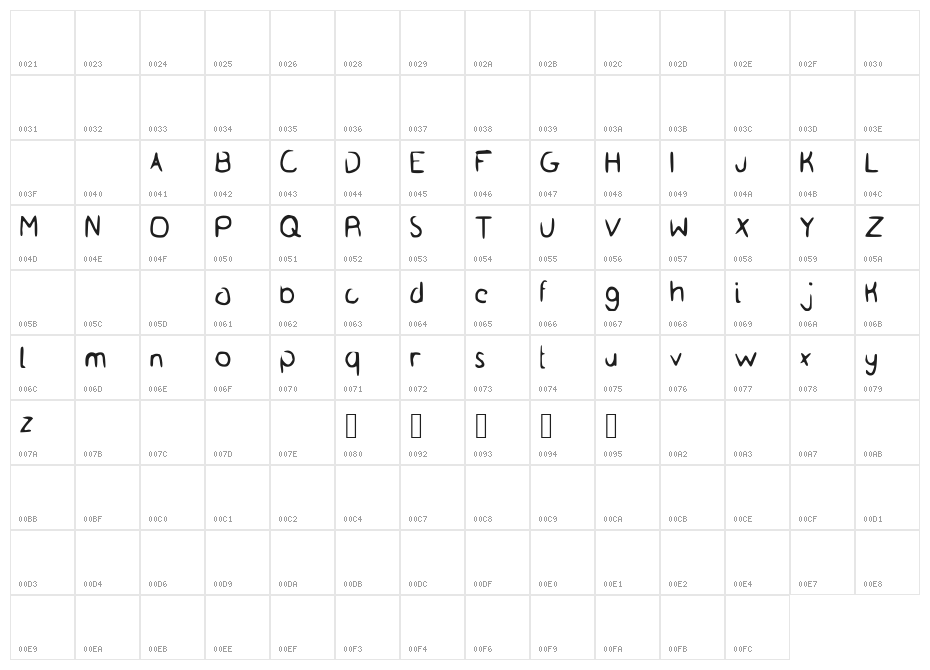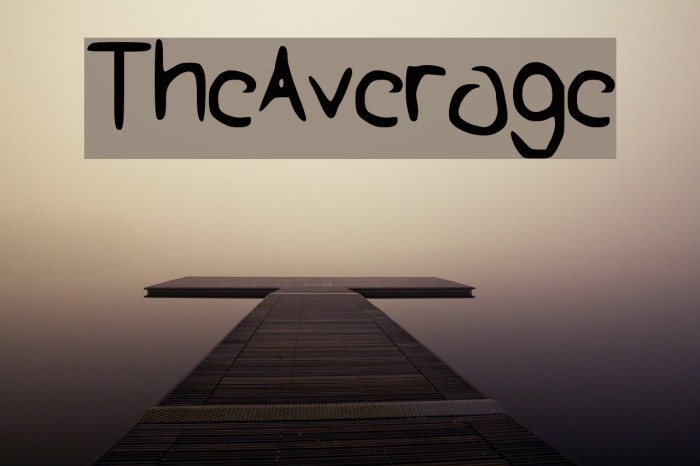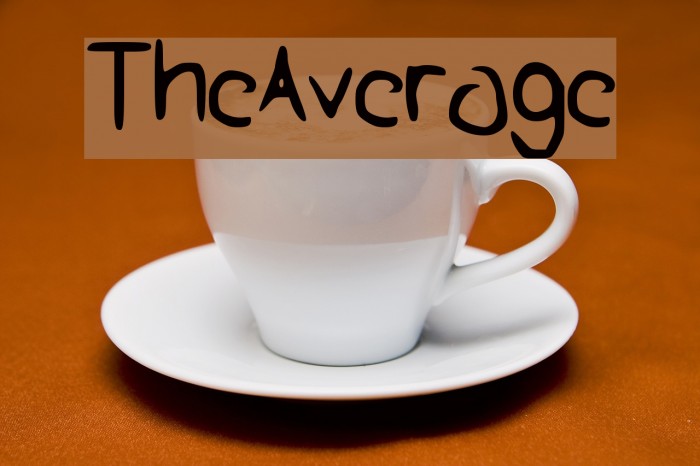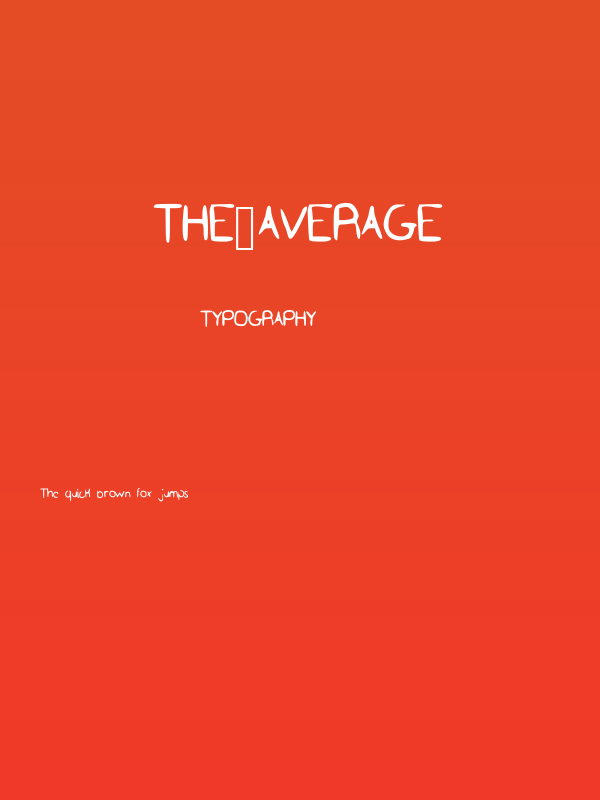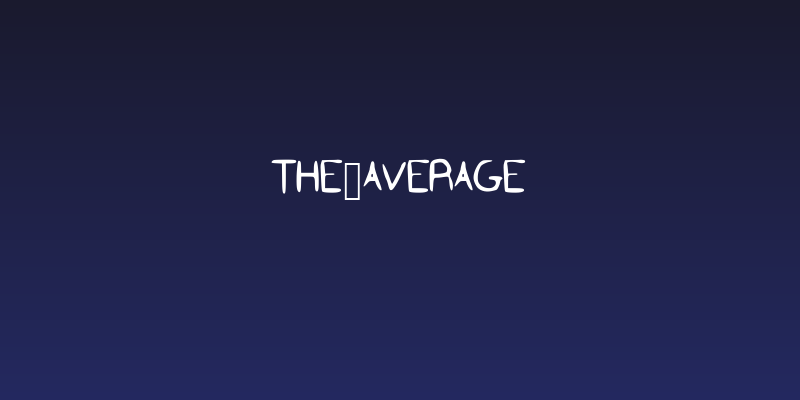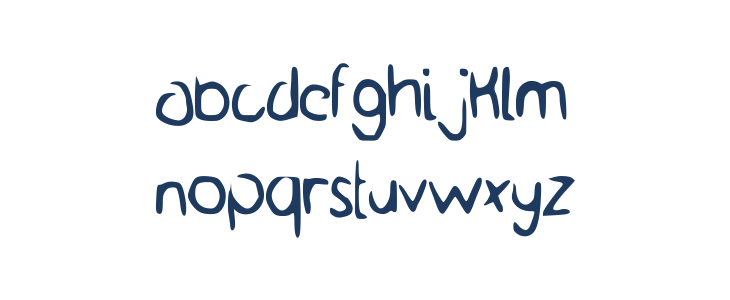
The_Average Font
The_Average Description
This font features a playful and informal style, characterized by its rounded and slightly irregular letterforms. The strokes are smooth and consistent, giving it a hand-drawn appearance that adds a touch of whimsy. The uppercase and lowercase letters maintain a cohesive look, with the lowercase letters mirroring the playful nature of the uppercase. The numbers and special characters follow the same design principles, ensuring uniformity across the font. Its casual and friendly aesthetic makes it suitable for projects that require a personal touch, such as children's books, greeting cards, or informal branding.
| Proposed Projects | Children's books, greeting cards, informal branding, playful posters. |